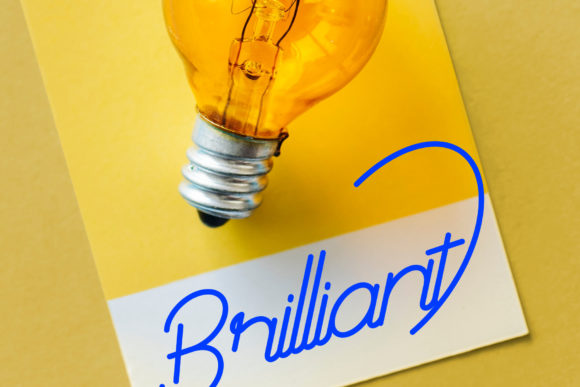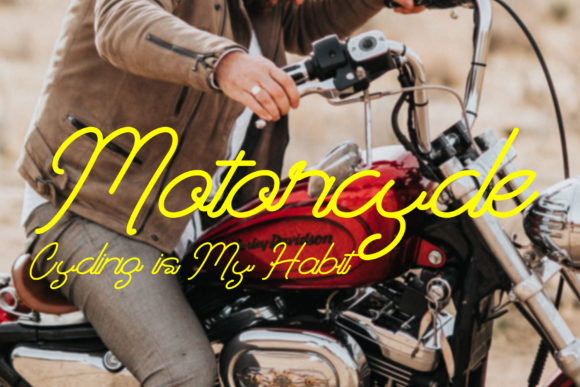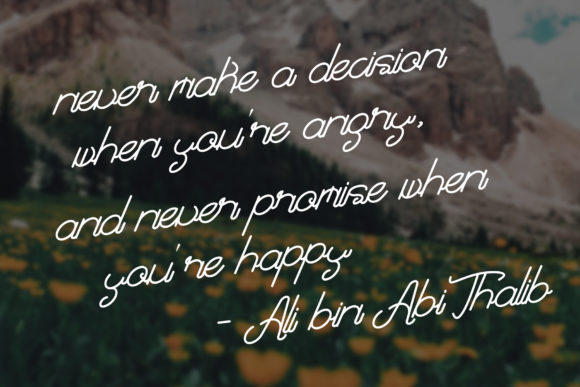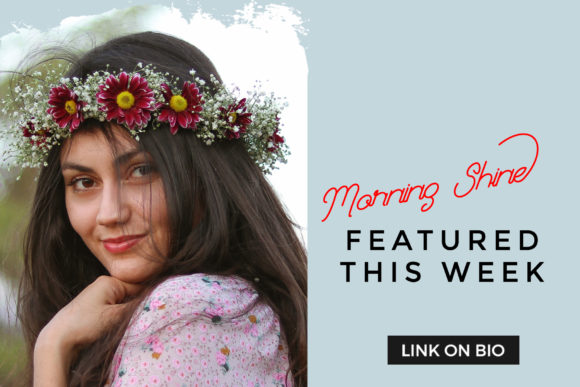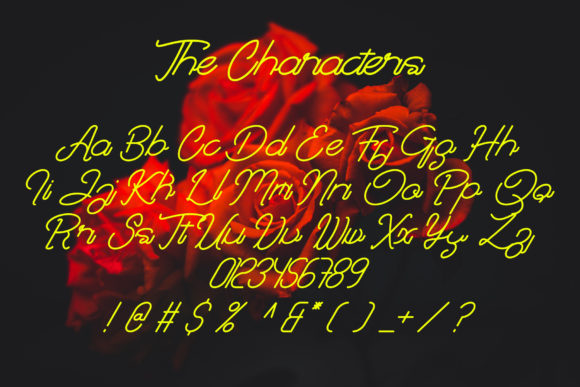
Khaira Script Font
About Khaira Script Font
This thick monoline font doesn’t need much to make your design look amazing. It has a handwritten feel which will give a personal and unique touch to every design.